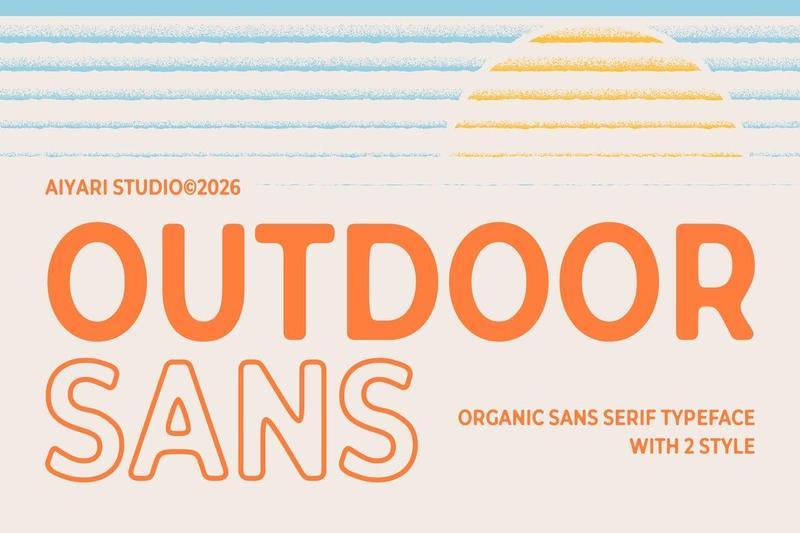
Outdoor Sans – Rounded Display GF5XWNX
**Outdoor Sans** is an organic, rounded sans serif built for warm summer, sunlit branding. Soft terminals and gently bouncing curves give every word a friendly, hand-finished feel the kind of lettering that looks at home on a coffee bag or a beachside menu. It comes in two styles, Regular and Outline, so you can move from a solid, confident headline to a light, airy accent without ever losing the mood.
The shapes are casual but tidy, which keeps the family readable at small sizes and characterful at large ones. Use Regular for logos and headlines that need presence, then layer Outline for badges, stickers, and packaging details. Together they work like two flavors of the same recipe distinct, but clearly from the same kitchen.
**Outdoor Sans** includes uppercase and lowercase letters, numerals, punctuation, currency symbols, and multilingual Latin support, so it travels easily across languages and projects. Pair it with bright photography and earthy tones for cafs, juice bars, swimwear labels, surf shops, festival graphics, and any brand that wants to feel sunny, fresh, and unhurried.